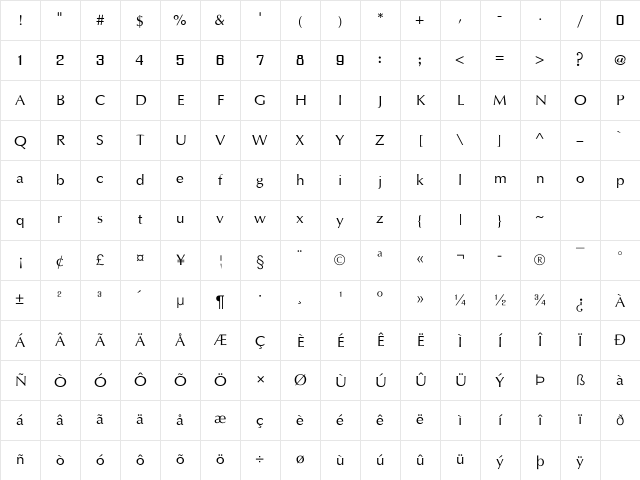
IrisUPC Regular
Design Context for IrisUPC
IrisUPC is a composed and adaptable typeface that performs quietly and consistently across a wide range of design contexts.